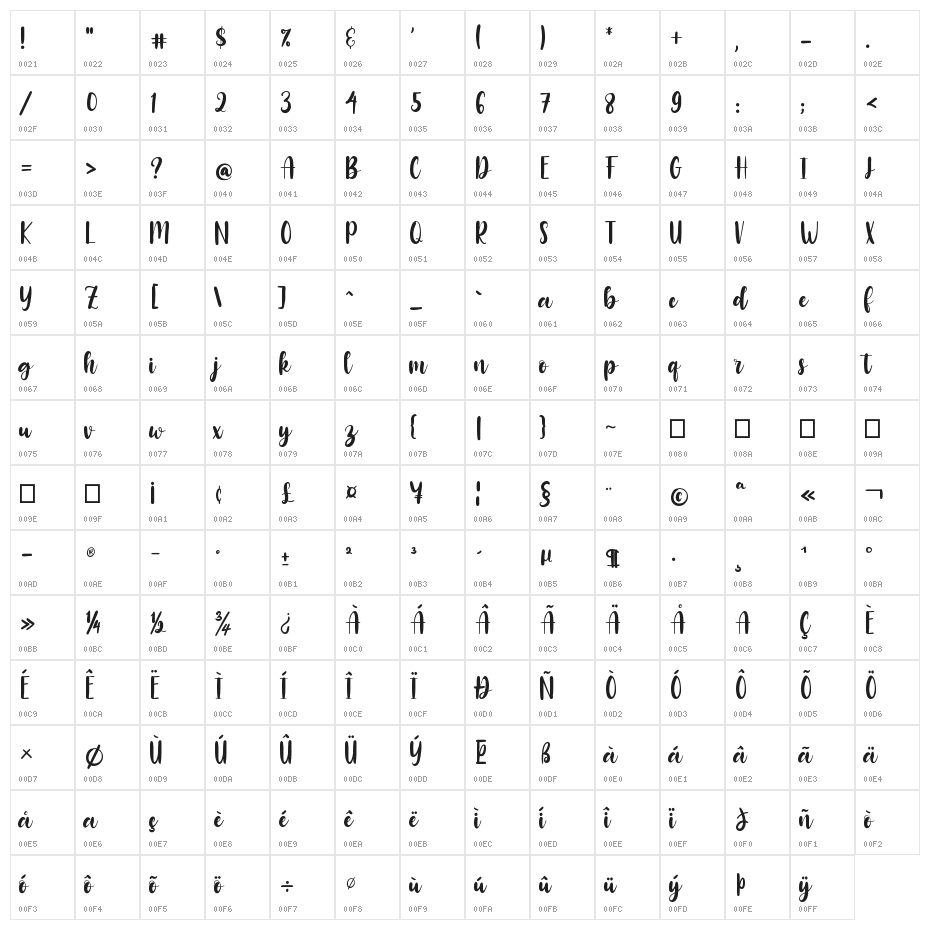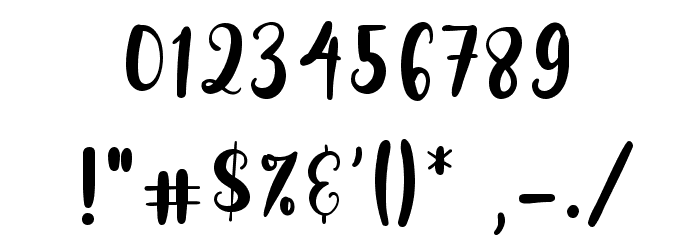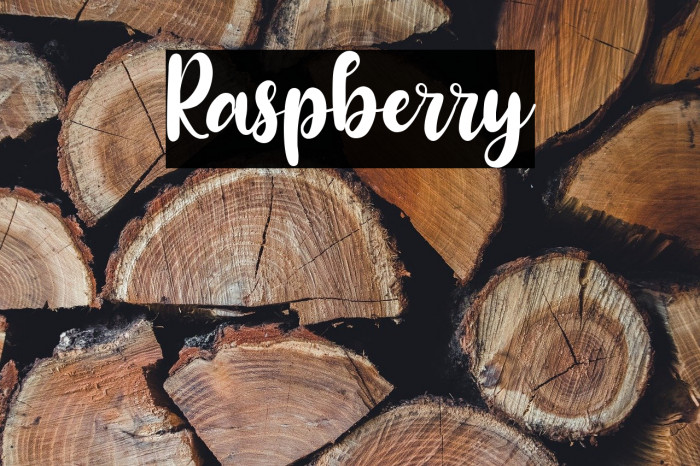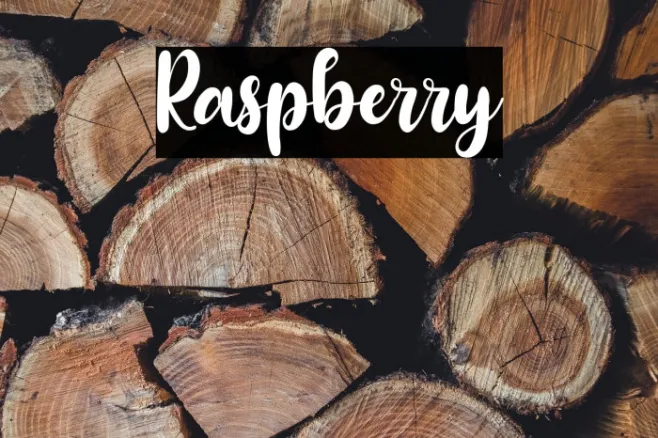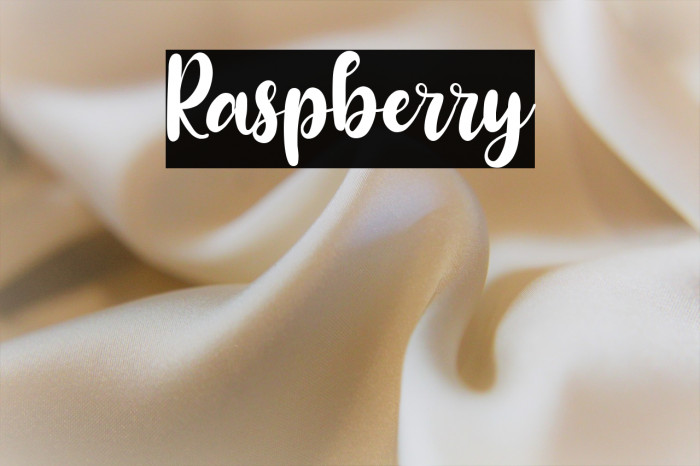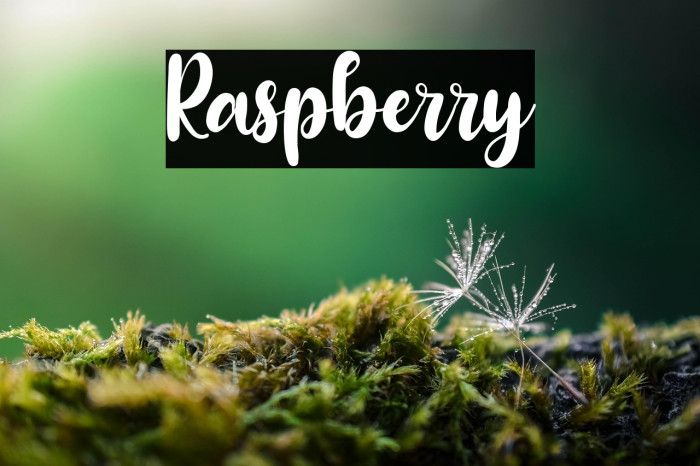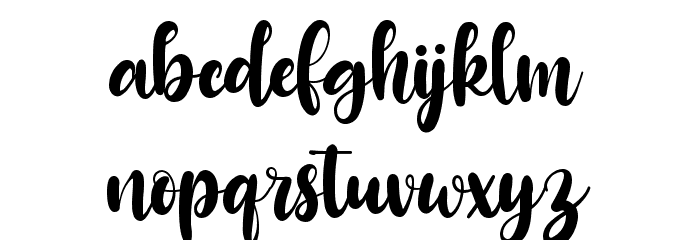
Raspberry Font
Raspberry Description
This font features a playful and energetic script style, characterized by its bold and flowing letterforms. The uppercase letters are tall and slightly condensed, with a whimsical flair that adds a sense of movement. The lowercase letters maintain a consistent rhythm, with smooth curves and loops that enhance its handwritten appeal. Numbers and special characters are designed to match the lively style, ensuring a cohesive look across all text elements. The overall appearance is both modern and approachable, making it suitable for a variety of creative applications.